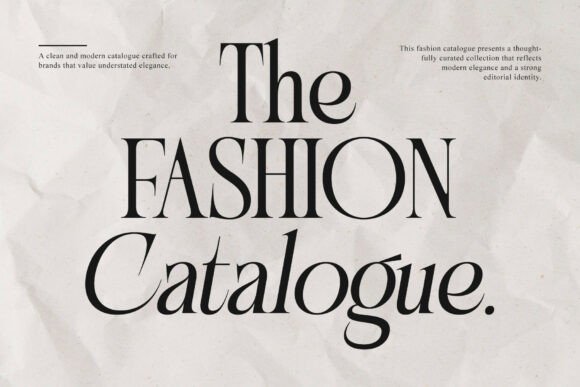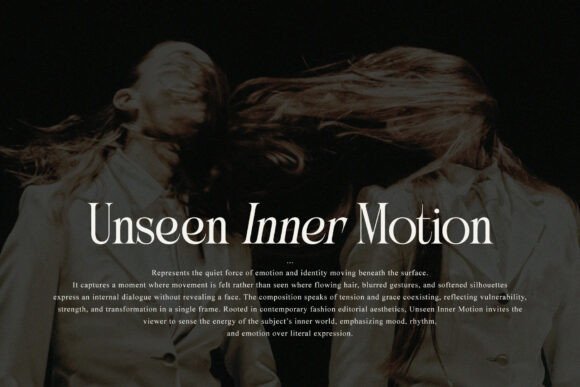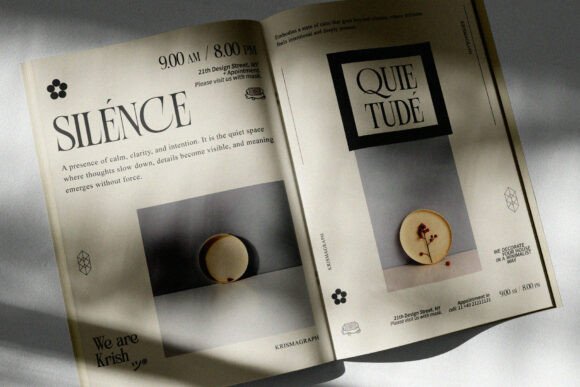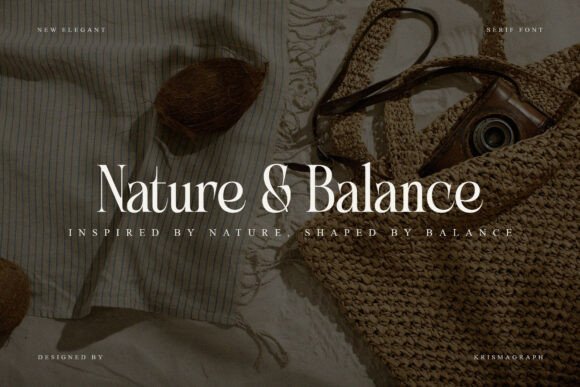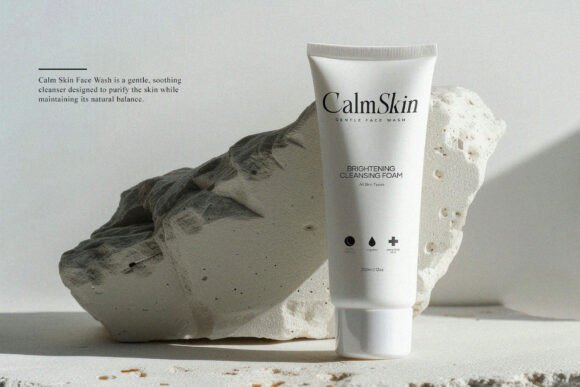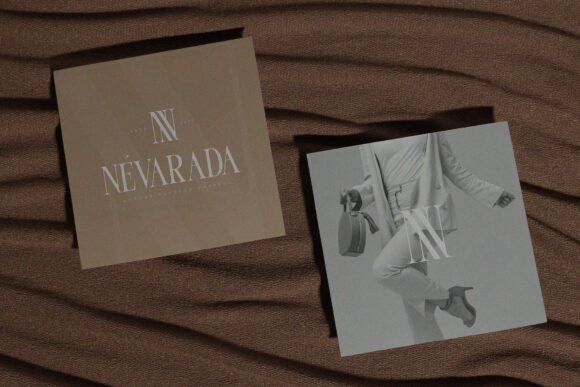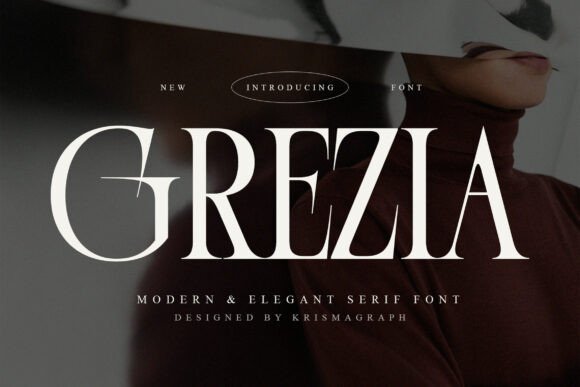
Introducing Grezia Font: Elevate Your Designs with Timeless Elegance
Are you on the hunt for a font that exudes sophistication, elegance, and a touch of modern flair? Look no further than Grezia Font, a stunning serif typeface that seamlessly blends classic charm with contemporary character. In this article, we’ll dive into the world of Grezia, exploring its design features, versatility, and the creative possibilities it offers for designers and crafters alike.
A Modern Take on Classic Sophistication
Grezia Font is a masterfully crafted serif font that boasts high contrast strokes, refined curves, and graceful proportions. This thoughtful design results in a luxurious yet confident presence that’s perfect for a wide range of creative projects. Whether you’re working on editorial layouts, branding systems, logo design, invitations, packaging, social media visuals, website headers, or premium print materials, Grezia is the ideal choice.
Key Features of Grezia Font
• High Contrast Strokes: Grezia’s sharp serifs and balanced letterforms create a strong visual hierarchy, ensuring your message stands out with clarity and elegance.
• Refined Curves: The font’s smooth, flowing curves add a touch of sophistication and refinement, making it perfect for designs that require a level of luxury and poise.
• Graceful Proportions: Grezia’s carefully crafted proportions ensure that the font remains readable and elegant, even at smaller sizes.
Unlock Endless Creative Possibilities
Grezia Font is incredibly versatile, making it an excellent addition to any designer’s toolkit. Here are just a few examples of how you can use Grezia to elevate your designs:
• Editorial Layouts: Use Grezia to add a touch of sophistication to your magazine layouts, articles, and blog posts.
• Branding Systems: Create a lasting impression with Grezia’s elegant and modern aesthetic, perfect for logos, business cards, and letterheads.
• Logo Design: Grezia’s unique character makes it an excellent choice for logos that require a level of sophistication and elegance.
• Invitations and Packaging: Add a touch of luxury to your invitations, product packaging, and labels with Grezia’s refined and elegant design.
• Social Media Visuals: Stand out on social media with Grezia’s modern and stylish aesthetic, perfect for graphics, headers, and promotional materials.
• Website Headers: Elevate your website’s design with Grezia’s elegant and sophisticated font, perfect for headers, titles, and navigation menus.
• Premium Print Materials: Use Grezia to create stunning print materials, such as brochures, catalogs, and business reports, that exude luxury and sophistication.
• Numbers and Fractions: Easily add numerical content to your designs with Grezia’s comprehensive number set.
• Punctuation and Symbols: Access a wide range of punctuation marks and symbols to enhance your designs.
• Alternates and Ligatures: Unlock creative possibilities with Grezia’s alternate characters and ligatures.
• Multilingual Support: Communicate with a global audience using Grezia’s extensive multilingual support.
Grezia Font is an exceptional serif typeface that offers the perfect blend of timeless sophistication and modern elegance. With its high contrast strokes, refined curves, and graceful proportions, Grezia is the ideal choice for designers and crafters seeking a font that exudes luxury, confidence, and style. Whether you’re working on a high-end branding project or a personal design venture, Grezia is sure to elevate your designs and leave a lasting impression.